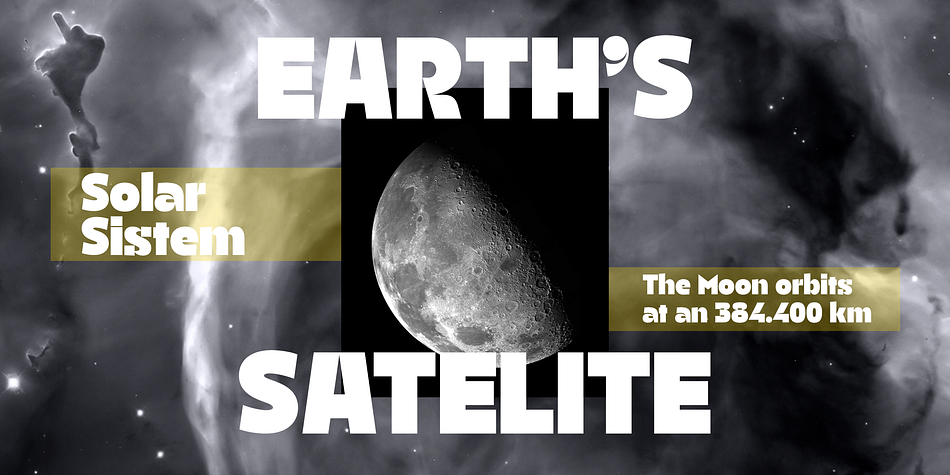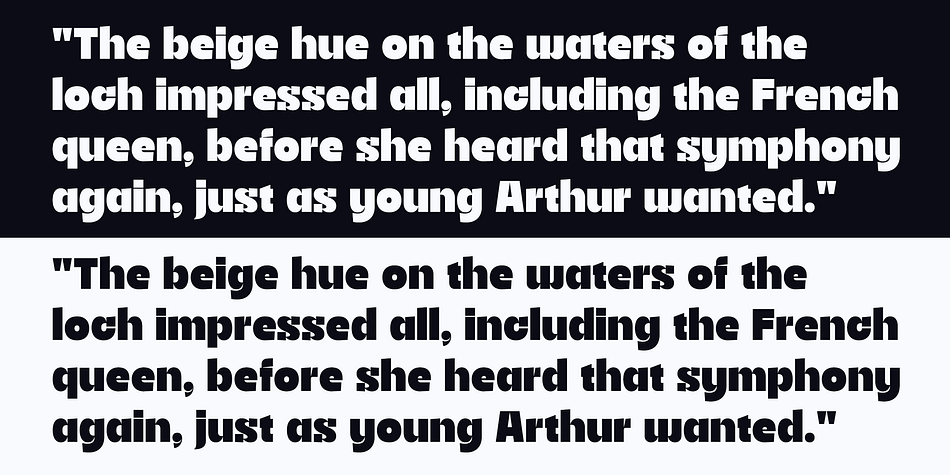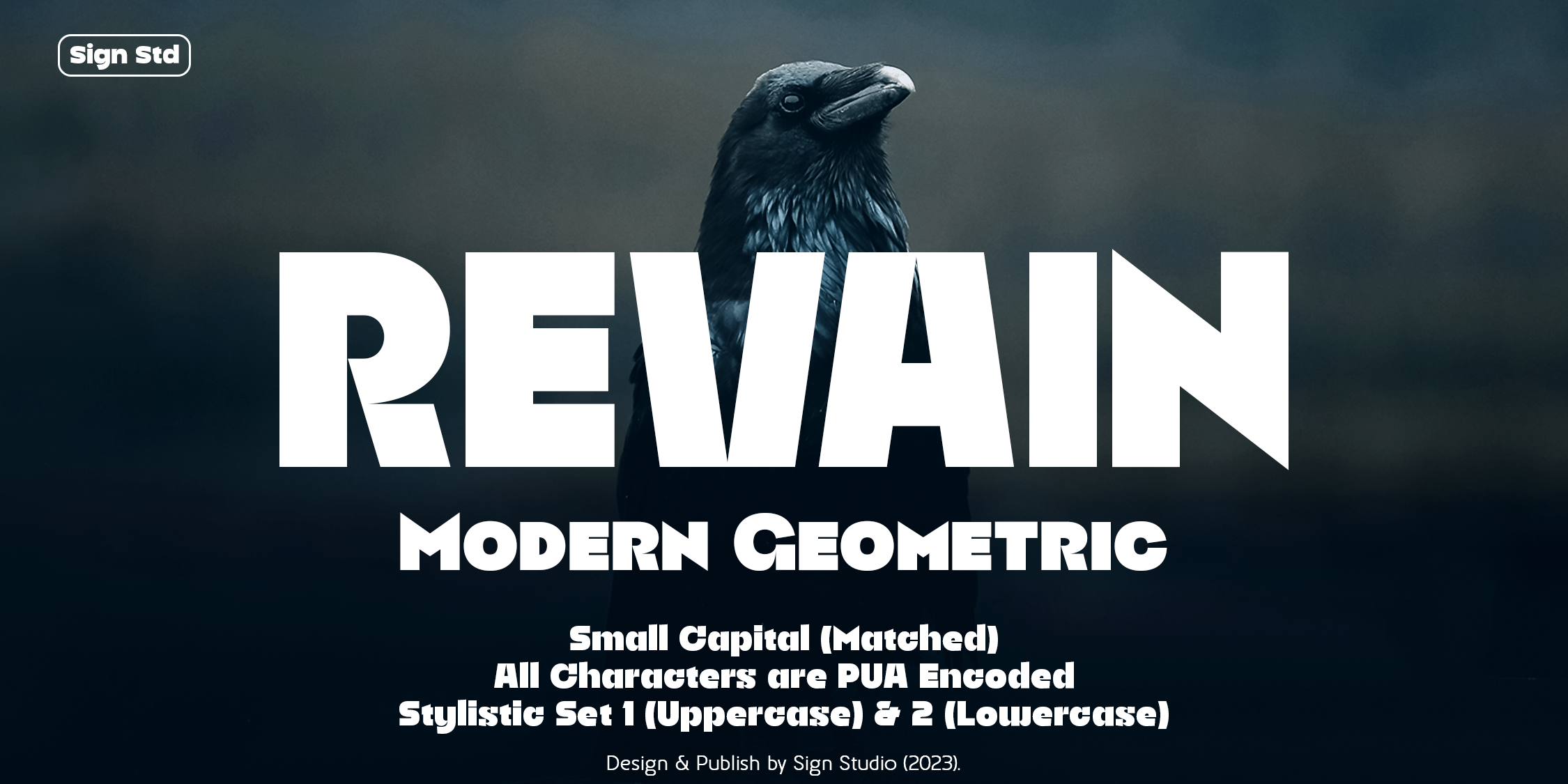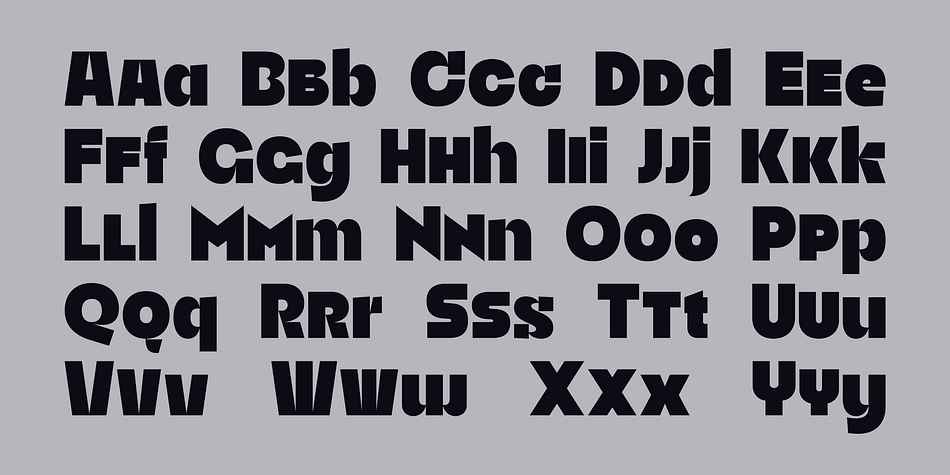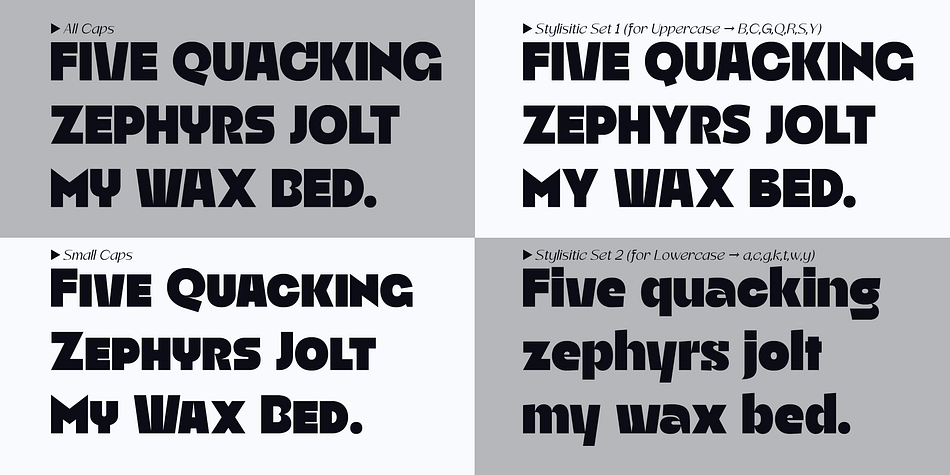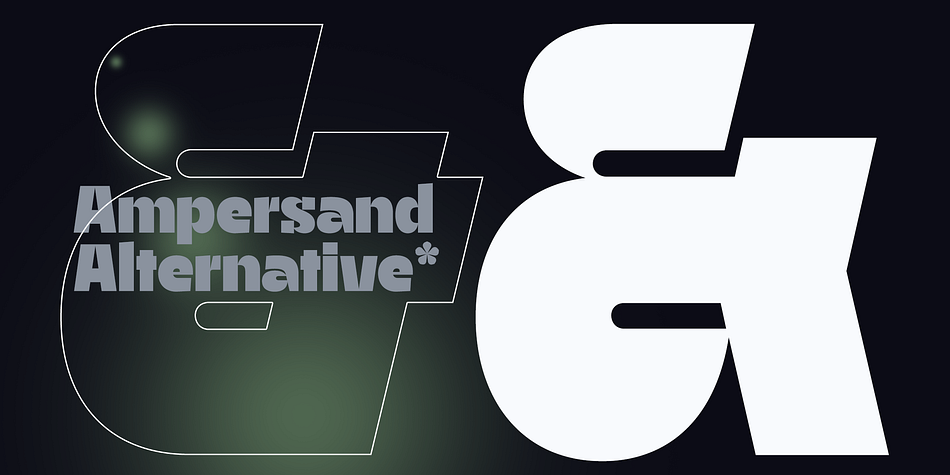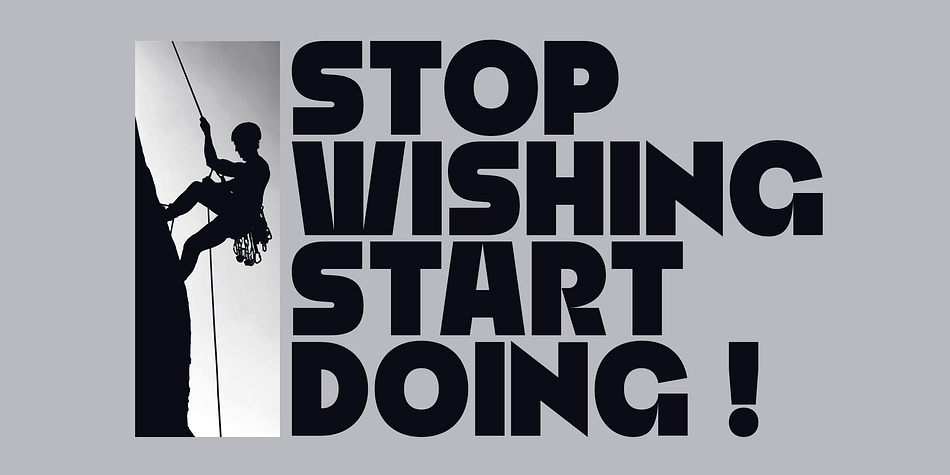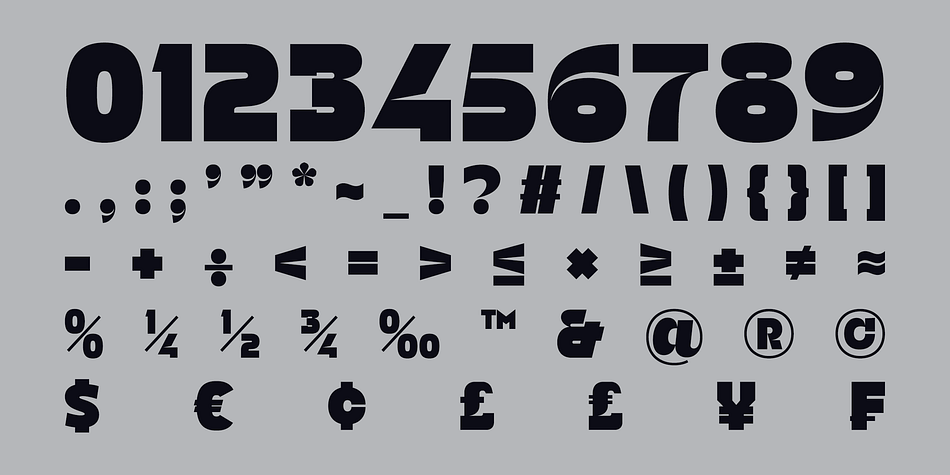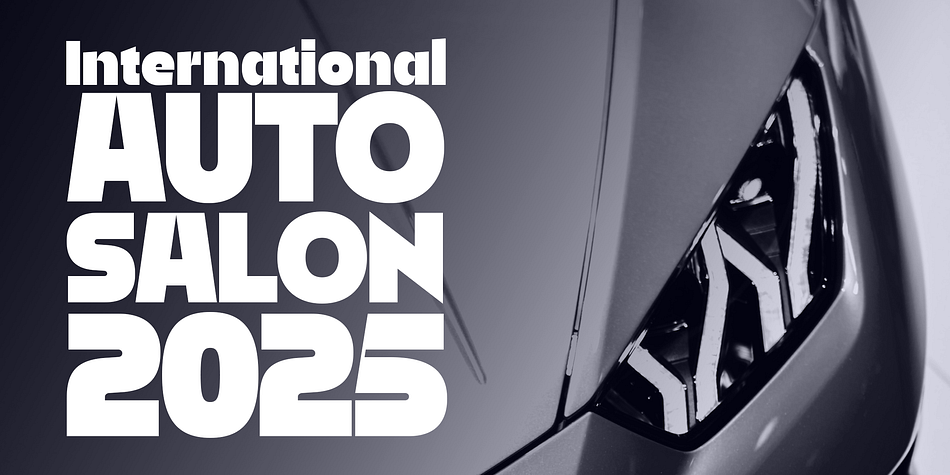
Revain
Revain is a display sans font family published by Sign Studio.
Revain typeface has the power to attract attention to a typographic design with its extra bold and geometric character. Shows a futuristic or modern impression that can be dynamic with today’s designs.
Equipped with the OpenType feature which can create various style choices, namely: Small Caps, Stylistic Set 1 (for Uppercase), Stylistic Set 2 (for Lowercase) which will make it easier for designers to choose the style they want.
Revain font is designed to make design projects easier. All characters are PUA encoded so they are accessible in most common software.